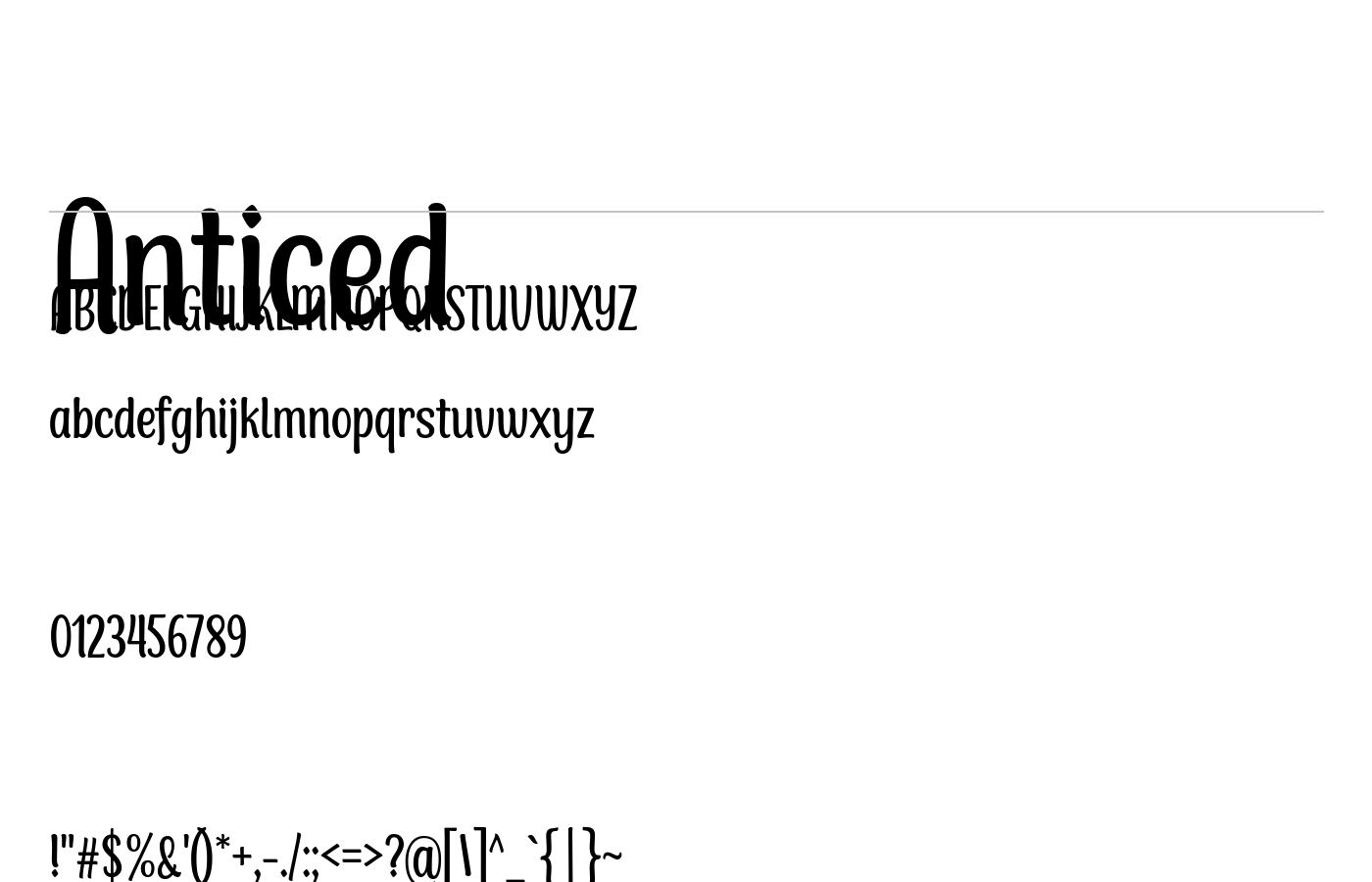
Anticed is a narrow, tall sans serif font with a playful and slightly quirky character. Its thin strokes and condensed letterforms give it a light, airy feel, making it perfect for modern, creative projects that need a distinctive yet approachable look. This font works well for headlines, posters, and branding that aims to stand out with personality and clarity.
Anticed Font
About Anticed Font
| Font family | Anticed Font |
| Designer | Jasman Nazara; Situjuh Nazara |